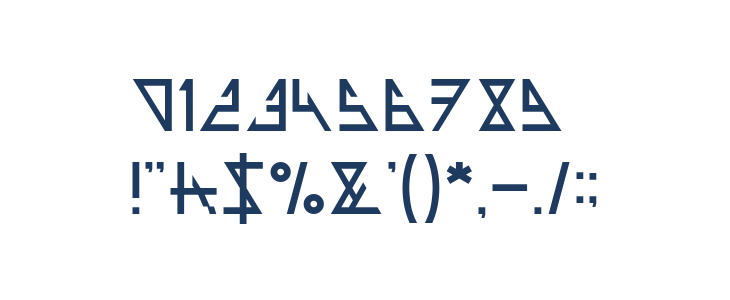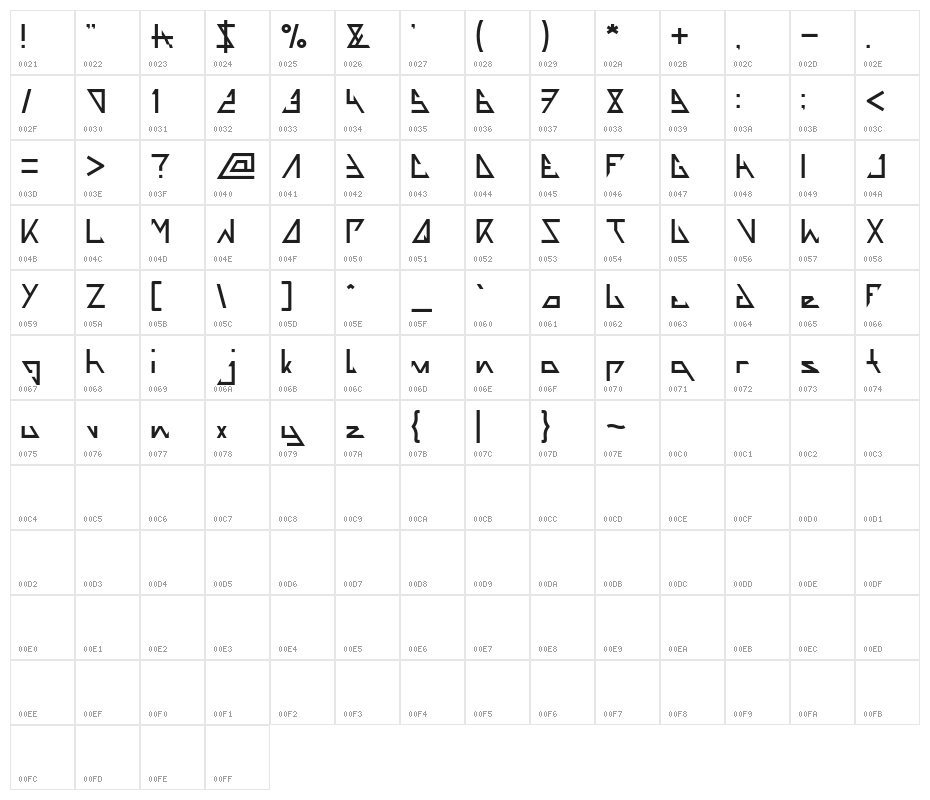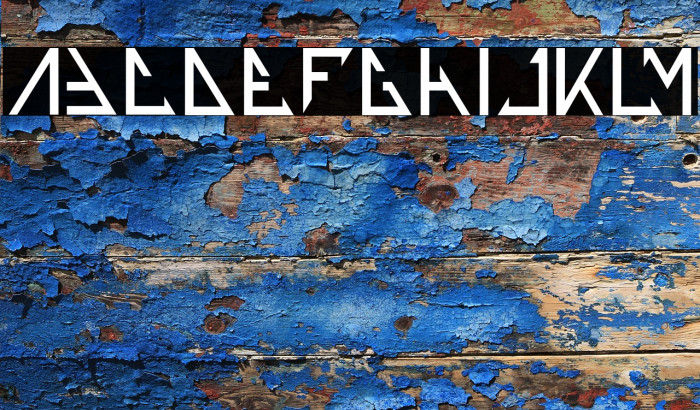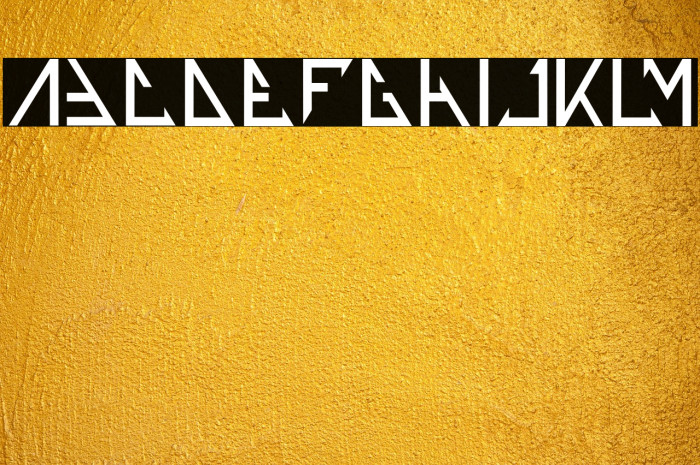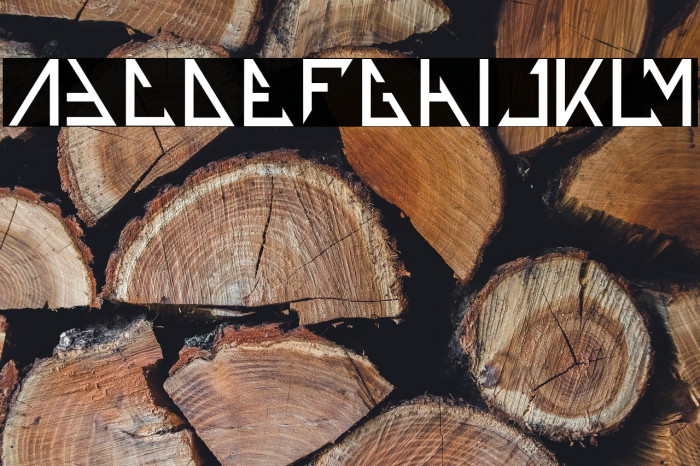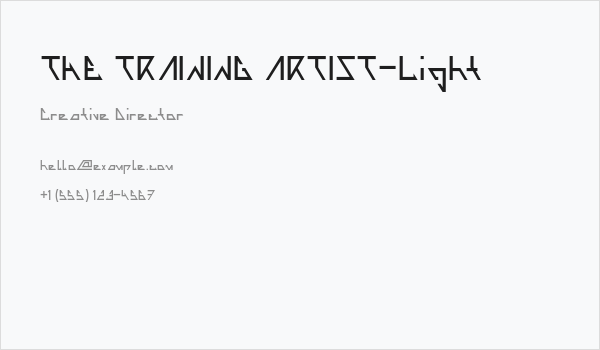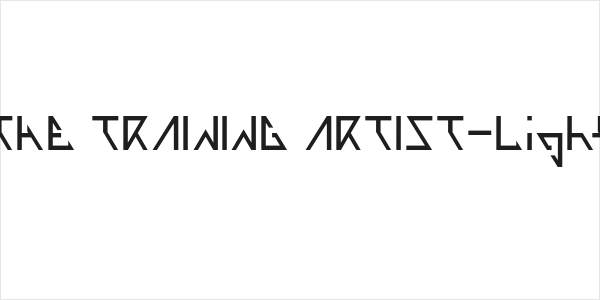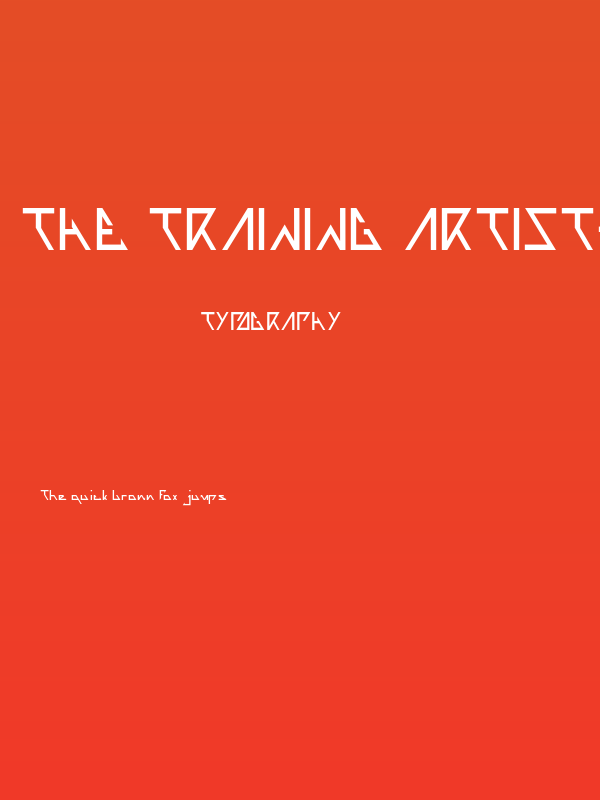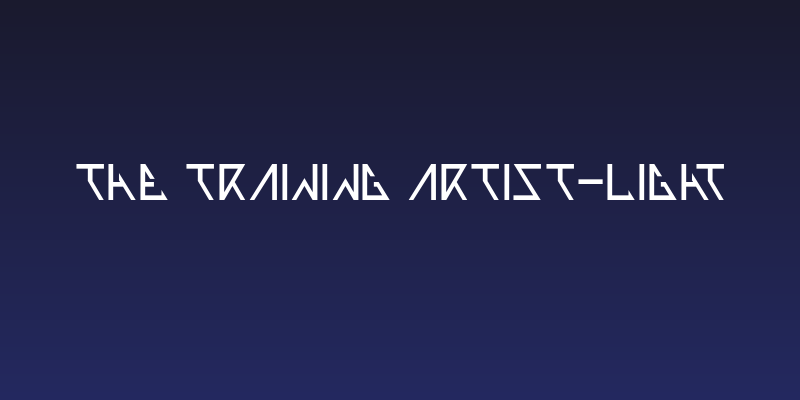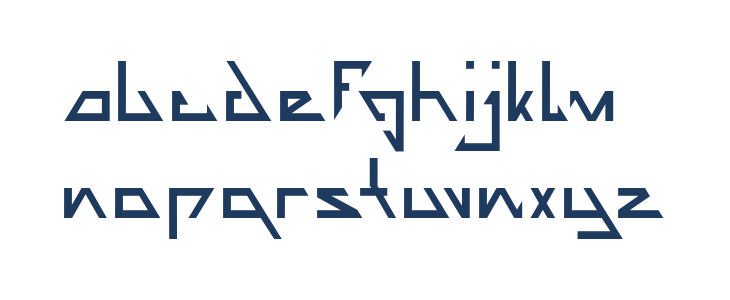
THE TRAINING ARTIST-Light Font
THE TRAINING ARTIST-Light Description
This font features a bold, geometric design with sharp angles and a futuristic aesthetic. The characters are constructed with straight lines and acute angles, giving it a dynamic and edgy appearance. The uppercase and lowercase letters maintain a consistent style, with the lowercase letters mirroring the angular design of the uppercase. Numbers and special characters follow the same geometric theme, ensuring uniformity across the font. This font's unique style makes it stand out, offering a modern and innovative look that is both striking and memorable.
| Proposed Projects | Ideal for sci-fi themed projects, modern branding, tech-related designs, and innovative advertising campaigns. |